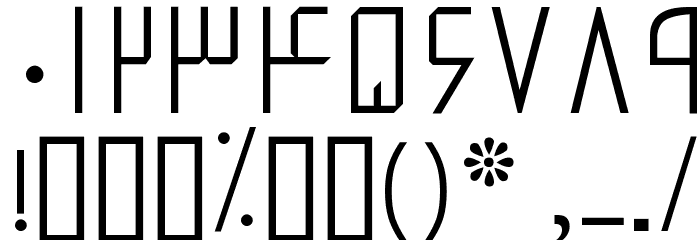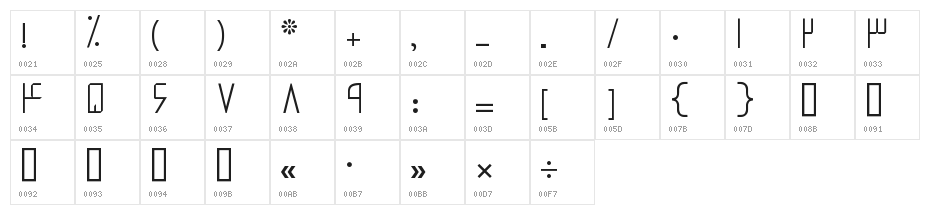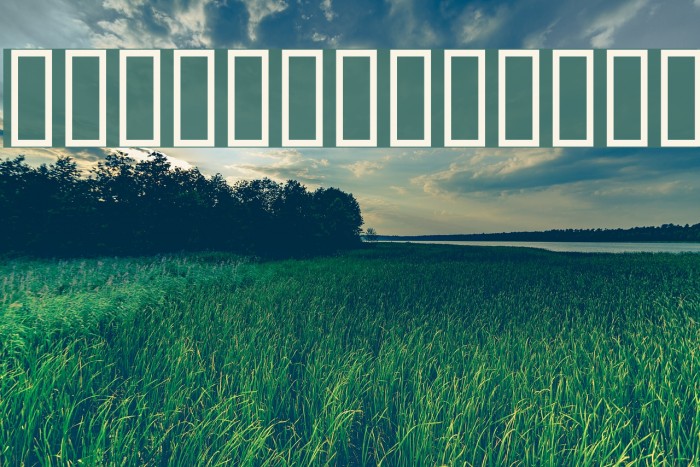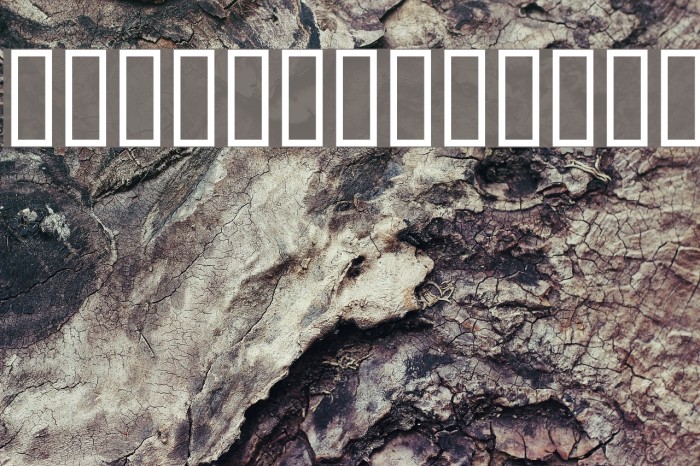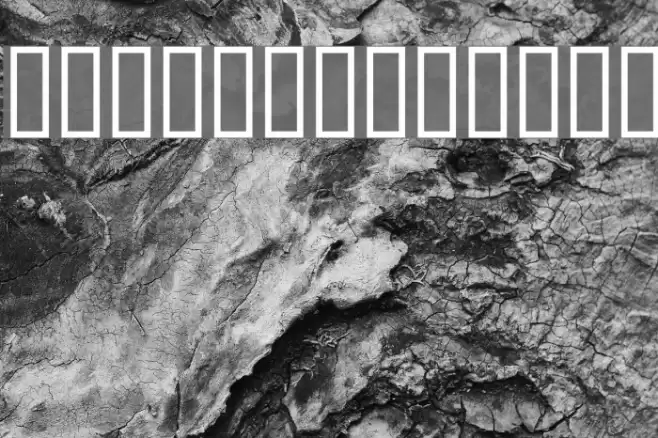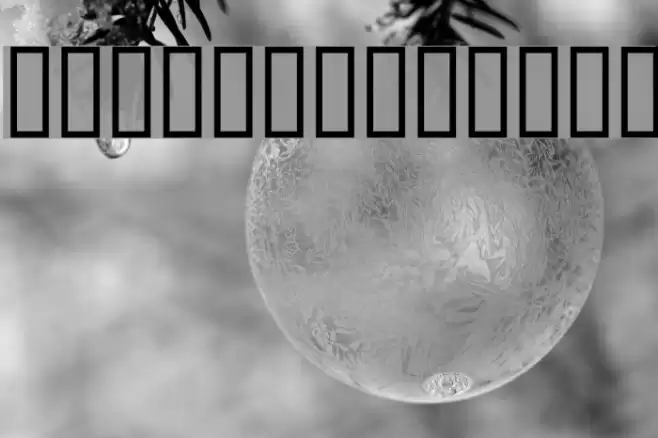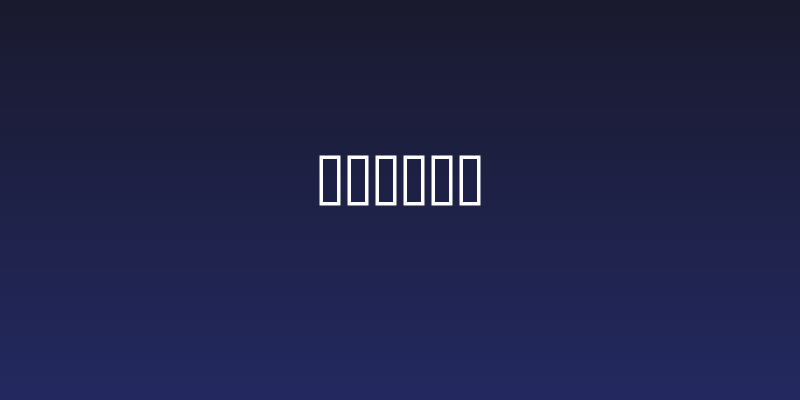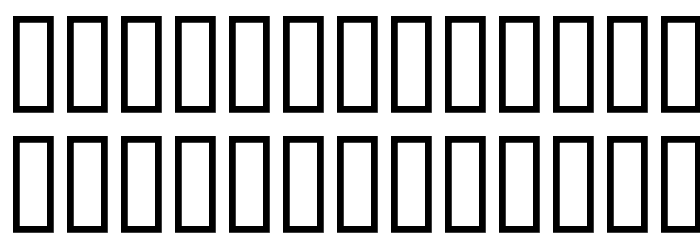
Proton Font
Proton Description
This font features a futuristic and geometric design, characterized by its bold, angular lines and sharp edges. The characters are constructed with a consistent stroke width, giving it a uniform and structured appearance. The uppercase letters are particularly striking, with a block-like form that emphasizes their modern aesthetic. The lowercase letters maintain this geometric style, ensuring readability while adding a unique flair. Numbers and special characters are designed to match the overall theme, with distinctive shapes that complement the alphabetic characters. This font is ideal for projects that require a contemporary and cutting-edge look.